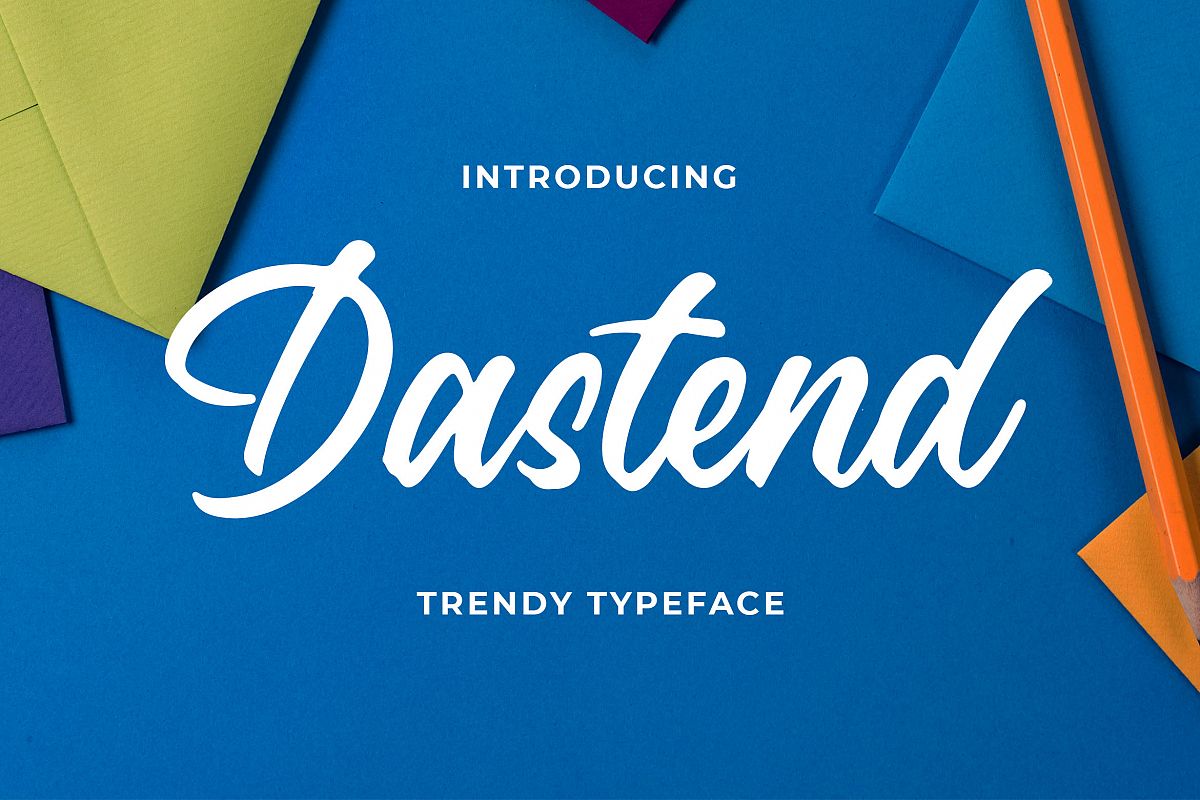
Introducing a new Handbrush typeface called Dastend Trendy Script Typeface. Dastend good for signature, logotype, poster, social media, book cover, tshirt design, packaging and any more.